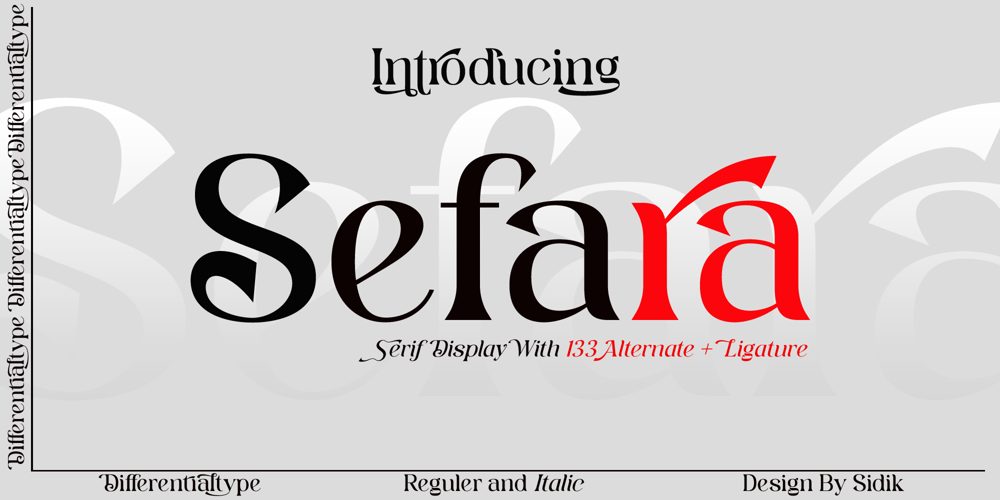
Sefara Font Family was designed by Sidik Sidik and published by Differentialtype. Sefara contains 2 styles and family package options. sefara is a serif font that can also be used as a display font. Sefara has many alternates and ligatures in it, making it easier for users to choose the style they want. Sefara is very suitable for documents, invitations, brochures, book covers, fashion magazines, and much more.